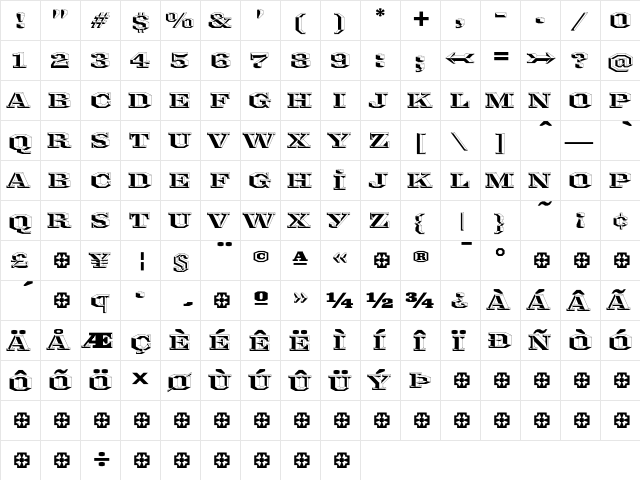
Ironmonger ThreeD
Design Context for Ironmonger Typeface
Ironmonger is a composed and adaptable typeface that performs quietly and consistently across a wide range of design contexts.